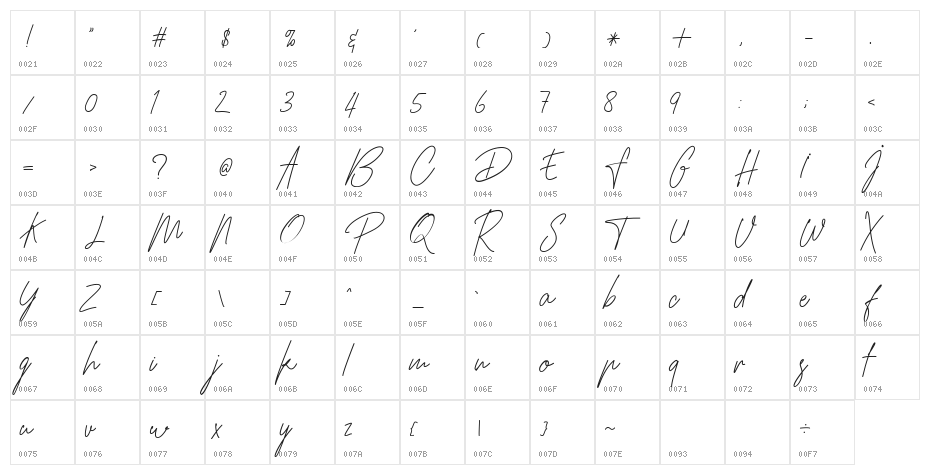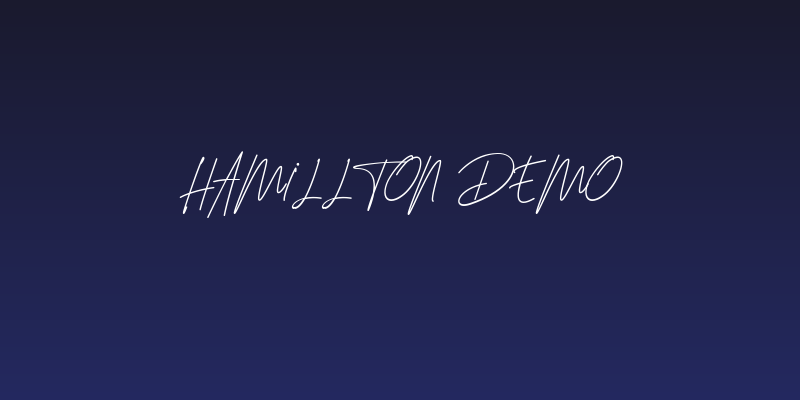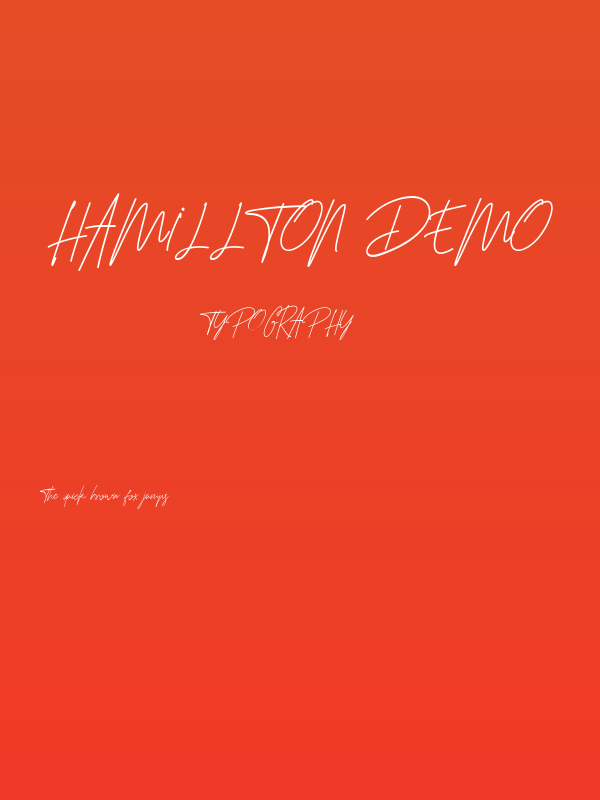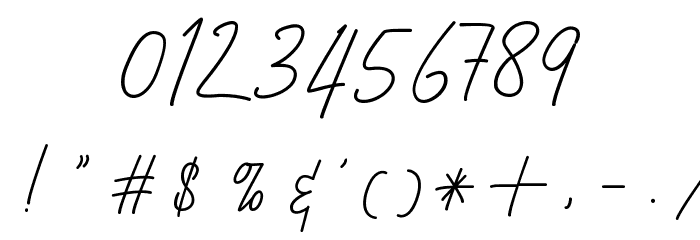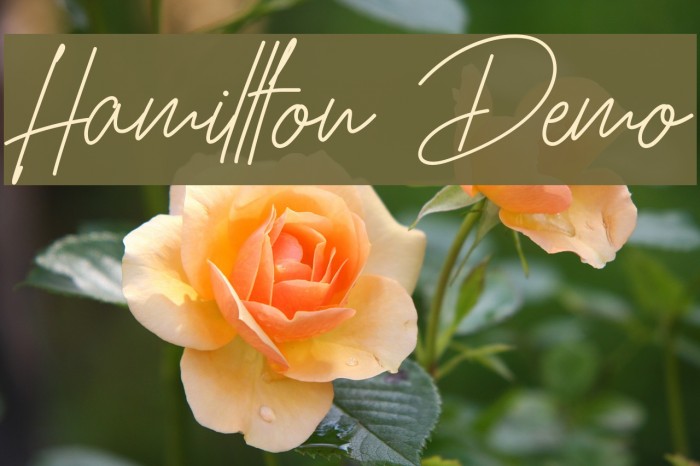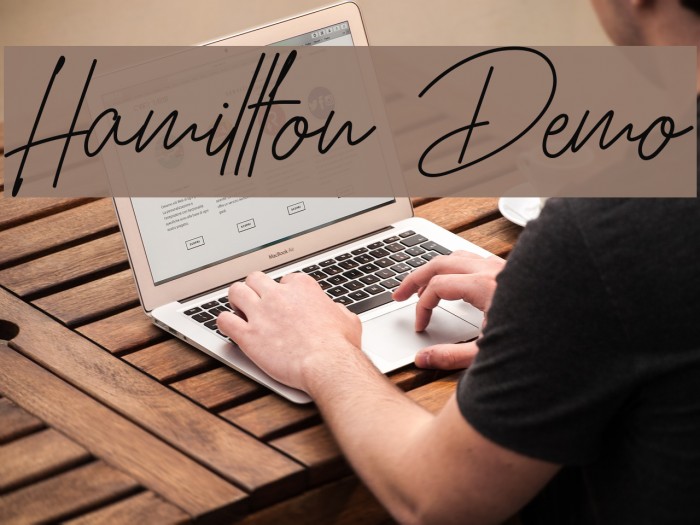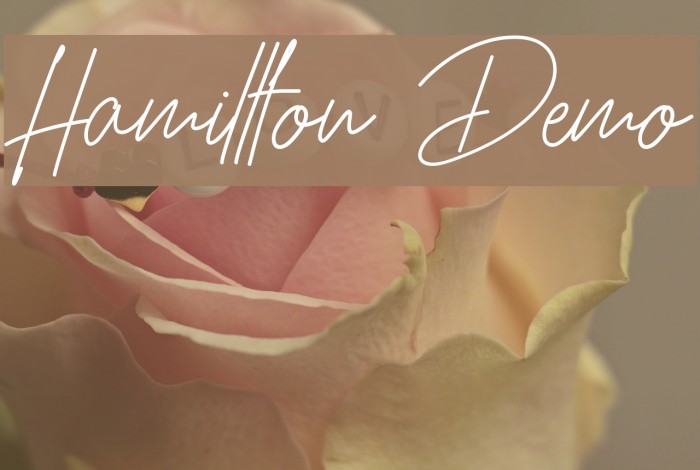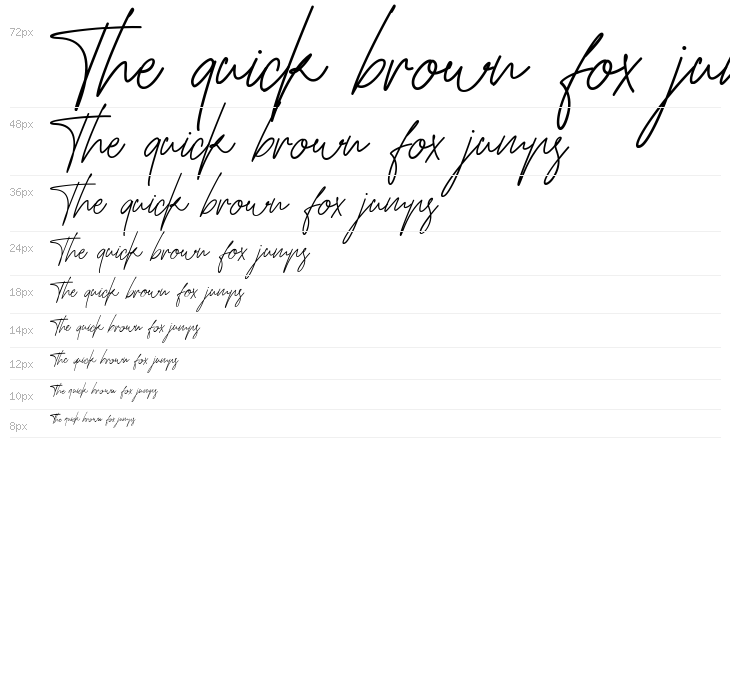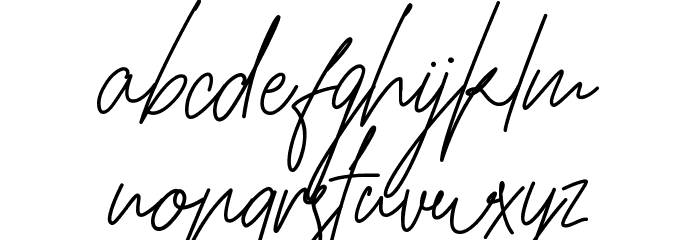
Hamillton Demo Font
Hamillton Demo Description
This font features a flowing, cursive style that mimics elegant handwriting. The characters are connected in a fluid manner, giving it a natural and personal touch. The uppercase letters are slightly more elaborate, with sweeping lines and loops, while the lowercase letters maintain a consistent flow. The numerals and special characters are designed to match the overall script style, ensuring uniformity across all glyphs. This font exudes a sense of sophistication and grace, making it suitable for projects that require a personal or artistic flair. The strokes are thin and delicate, adding to the font's refined appearance.